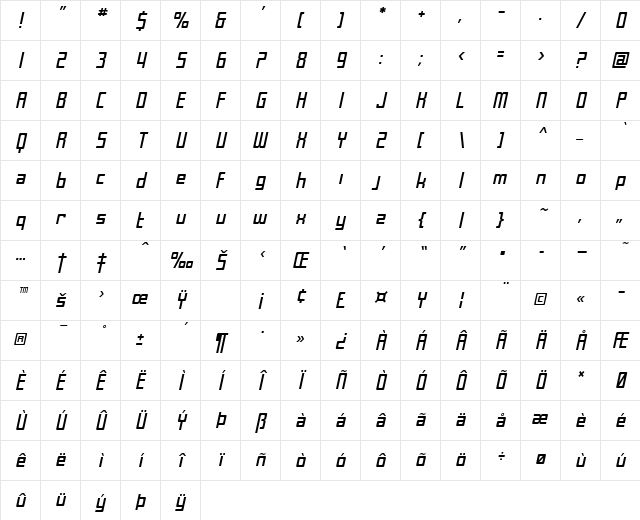
SF Laundromatic Oblique Free Font
SF Laundromatic Oblique
Design Context for SF Laundromatic
SF Laundromatic is a composed and adaptable typeface that performs quietly and consistently across a wide range of design contexts. The slanted form adds forward momentum and visual energy.
Pro Tip: Use SF Laundromatic for emphasis, pull quotes, and subheadings where its slanted energy can add rhythm to the layout.